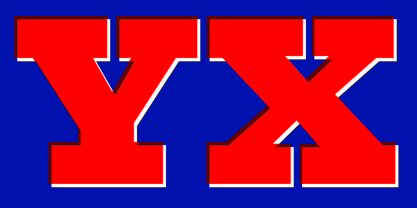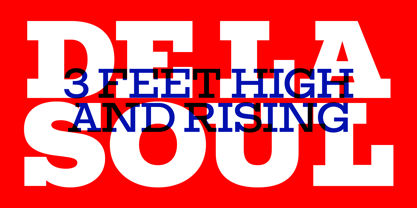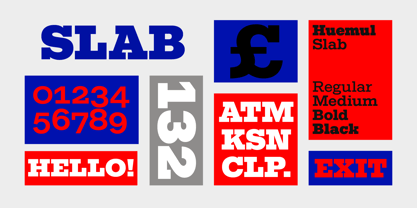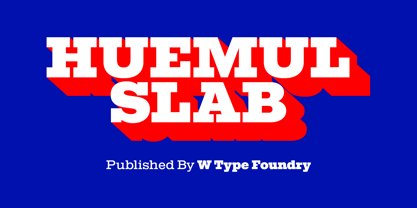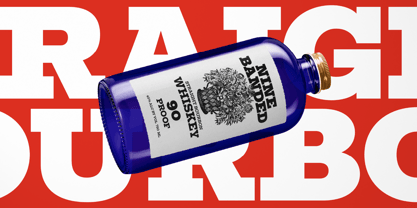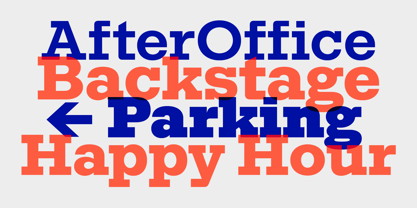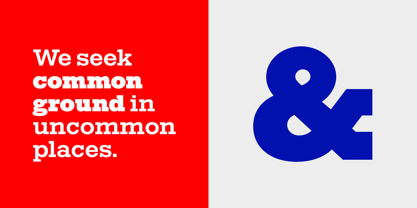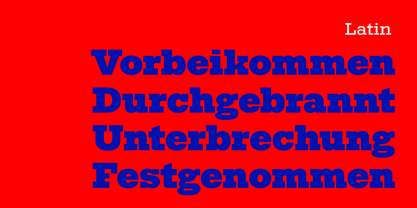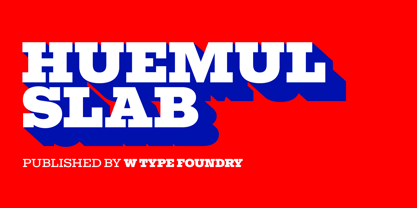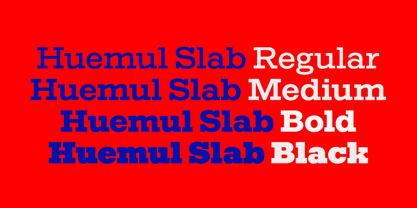
Huemul Slab
by W Type Foundry
The Huemul Slab Font Family was designed by Diego Aravena and published by W Type Foundry. Huemul Slab contains 4 styles and family package options.
Huemul Slab is a homage to Clarendon and Rockwell. While both typefaces feature powerful slab serifs, their proportions differ significantly. Clarendon has proportions based on transitional typefaces, giving it a more even and wider structure, whereas Rockwell follows classic proportions, resulting in greater variation between letterforms. Huemul Slab bridges the character of Rockwell with the more modern proportions typical of transitional typefaces, achieving a contemporary look. The result is a low-contrast typeface with aligned heights, ready for modern use but with a touch of classic elegance.